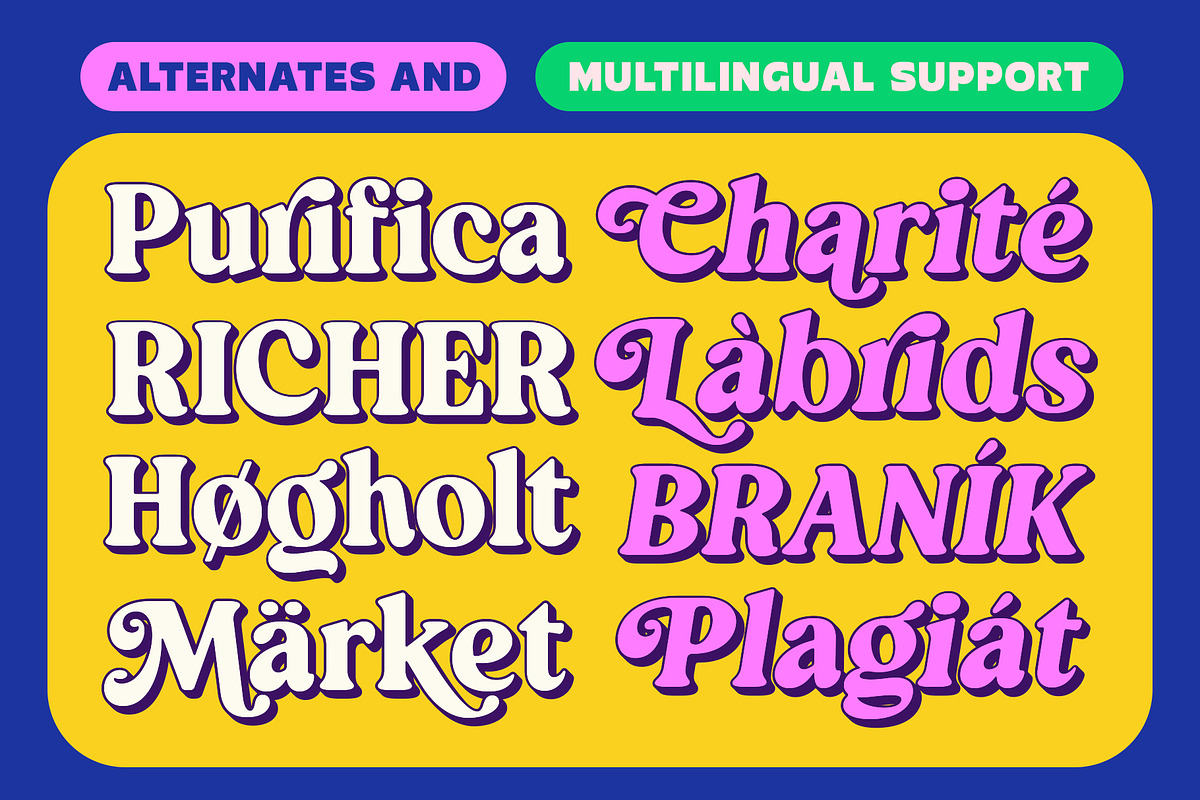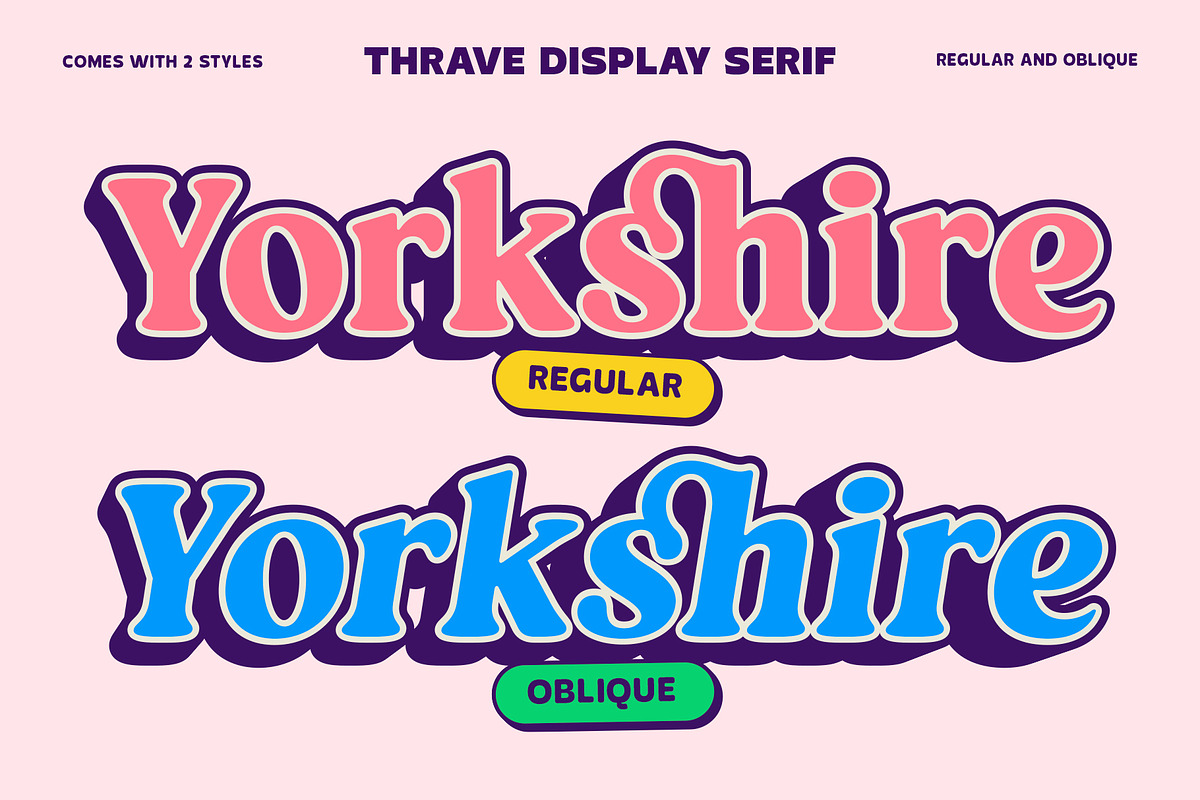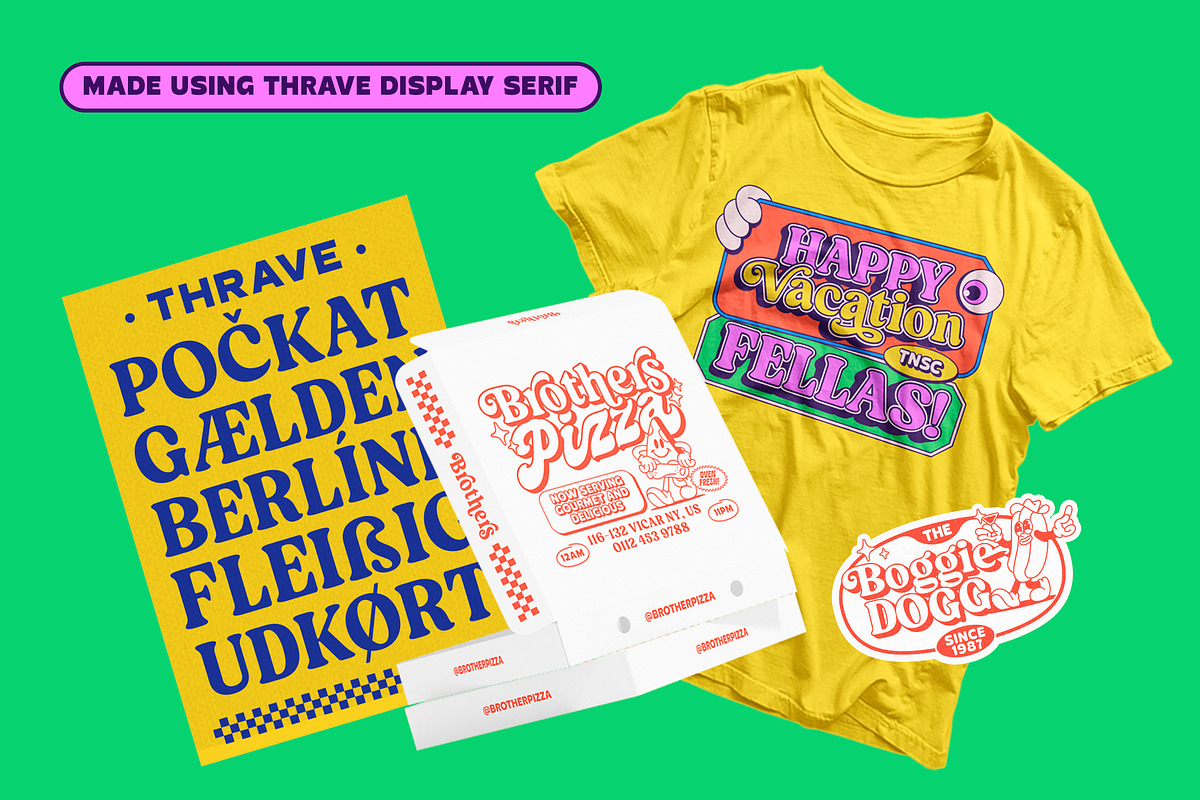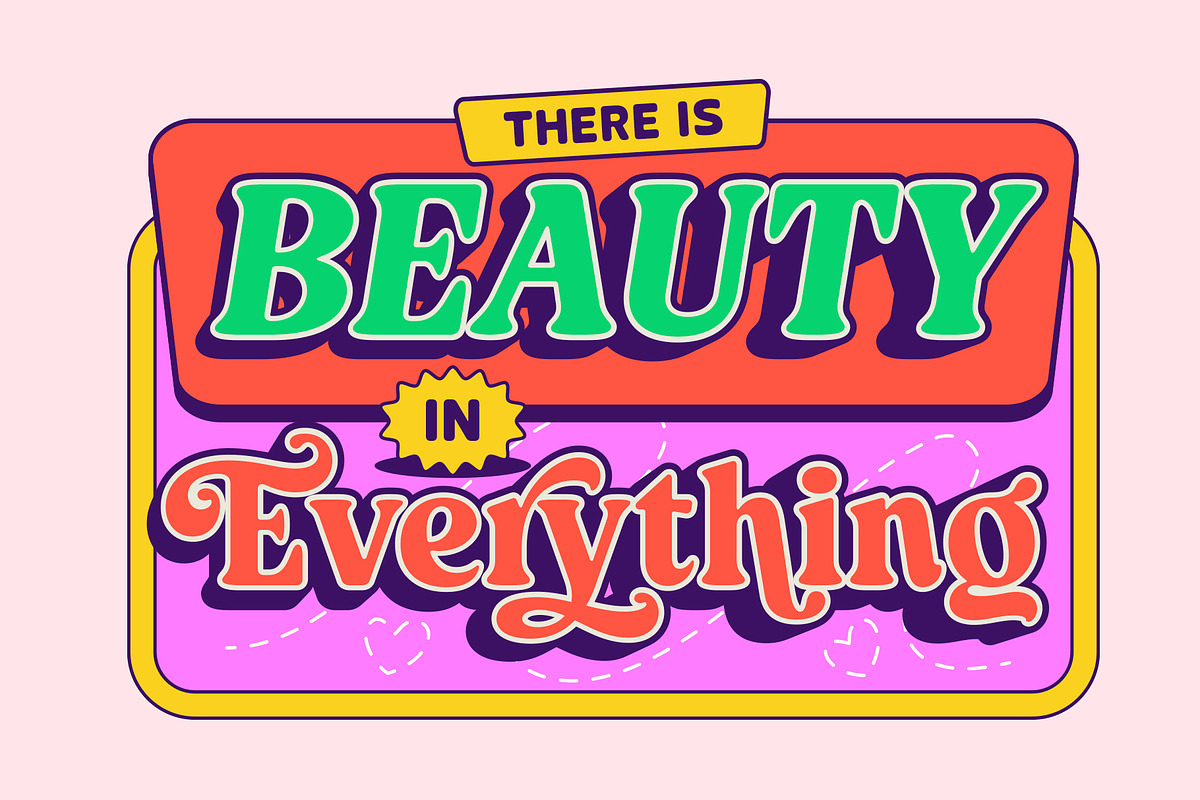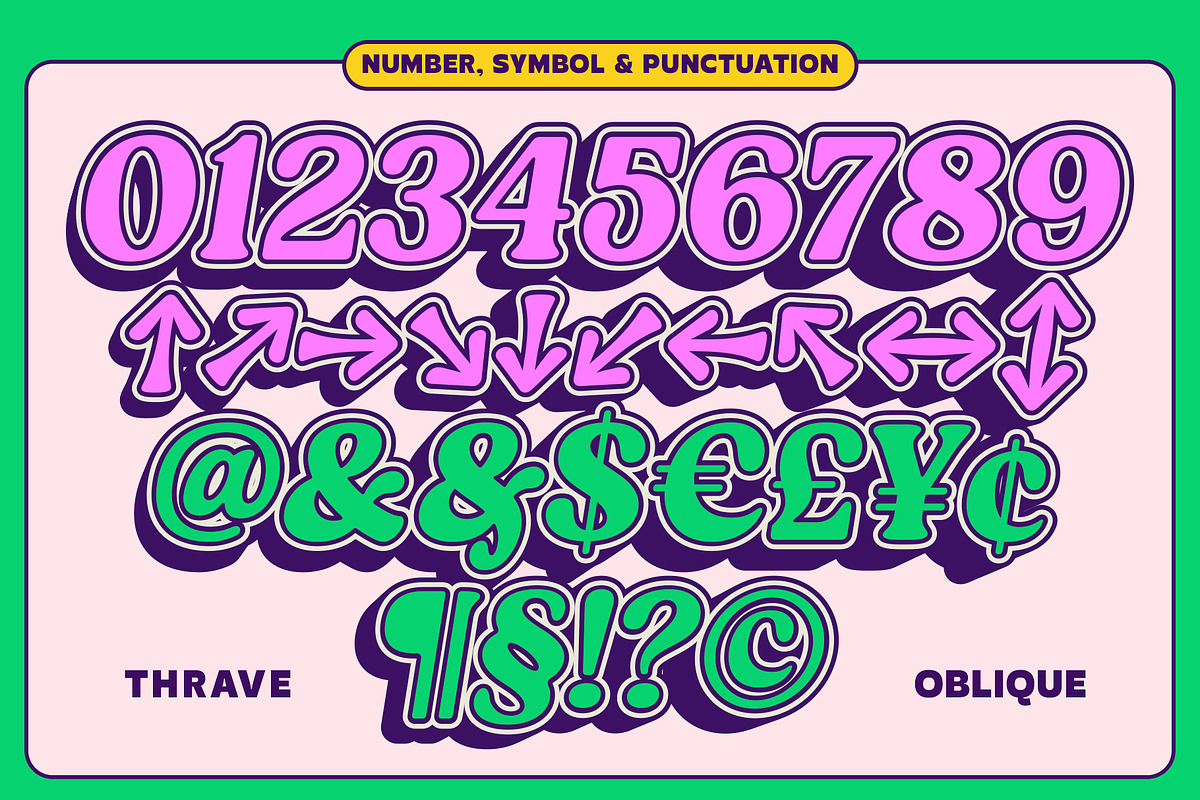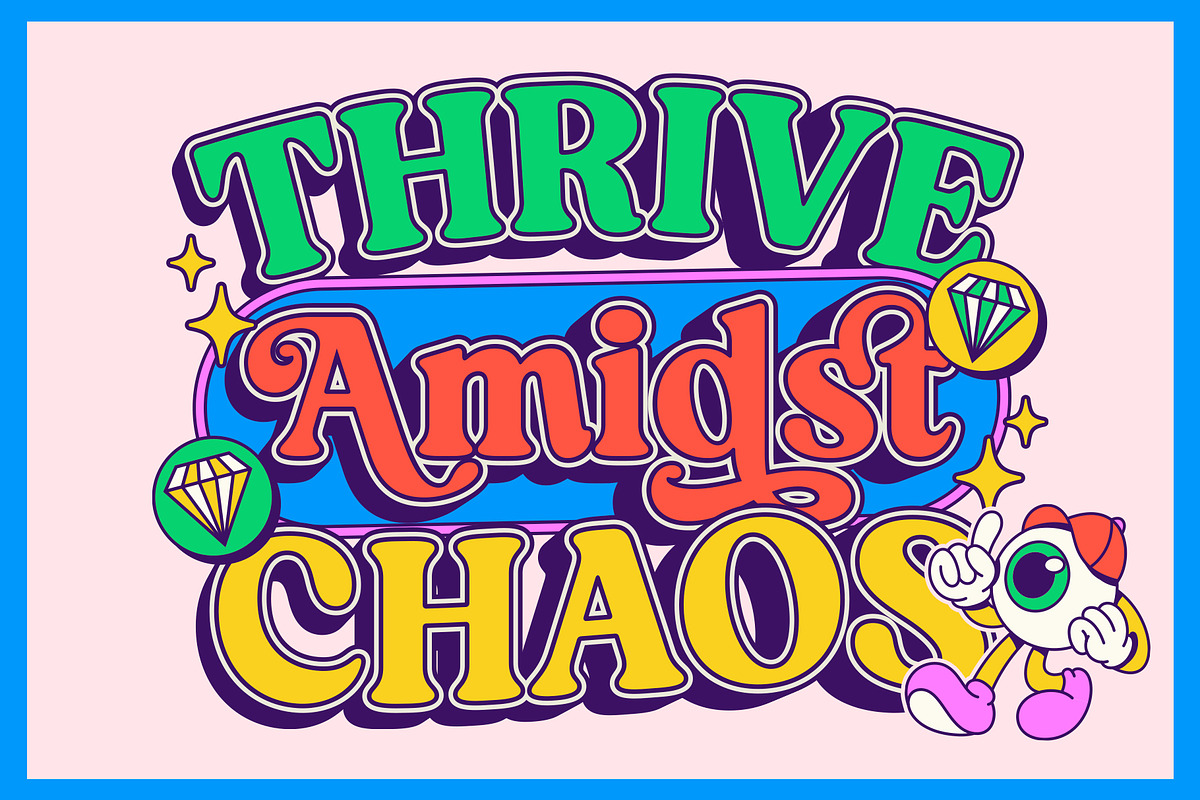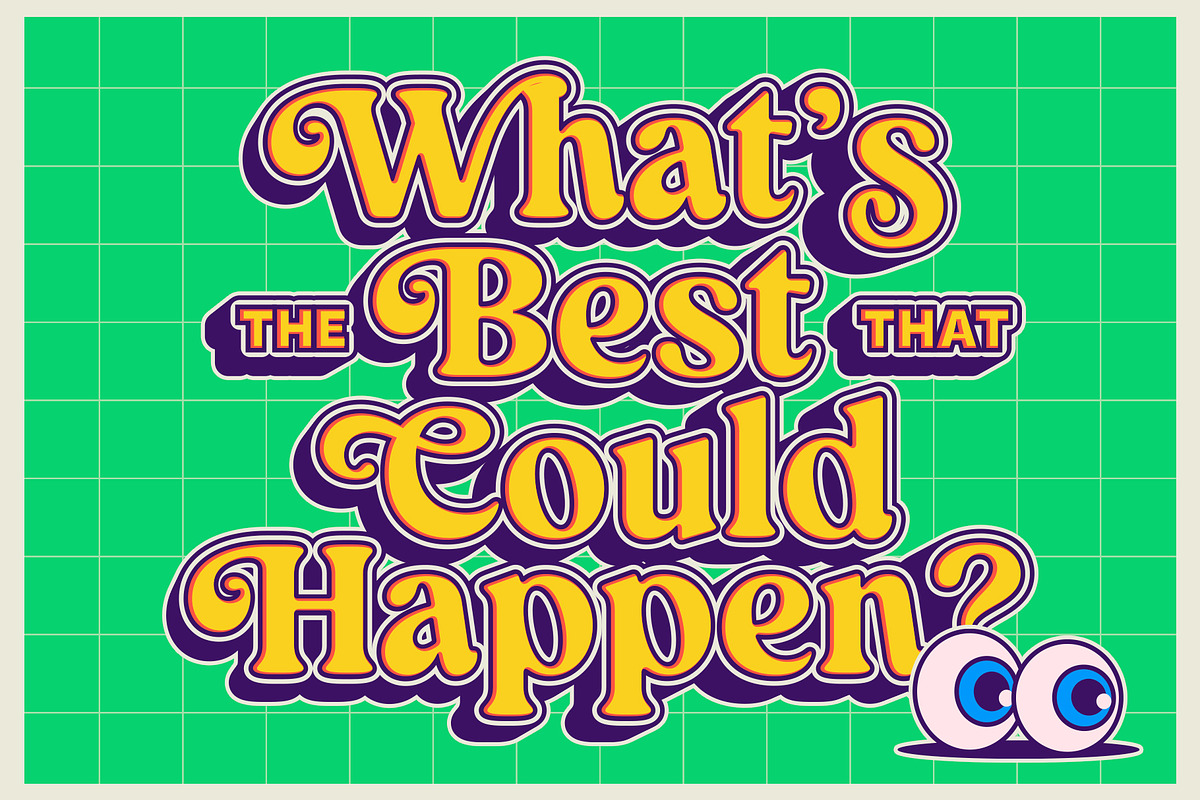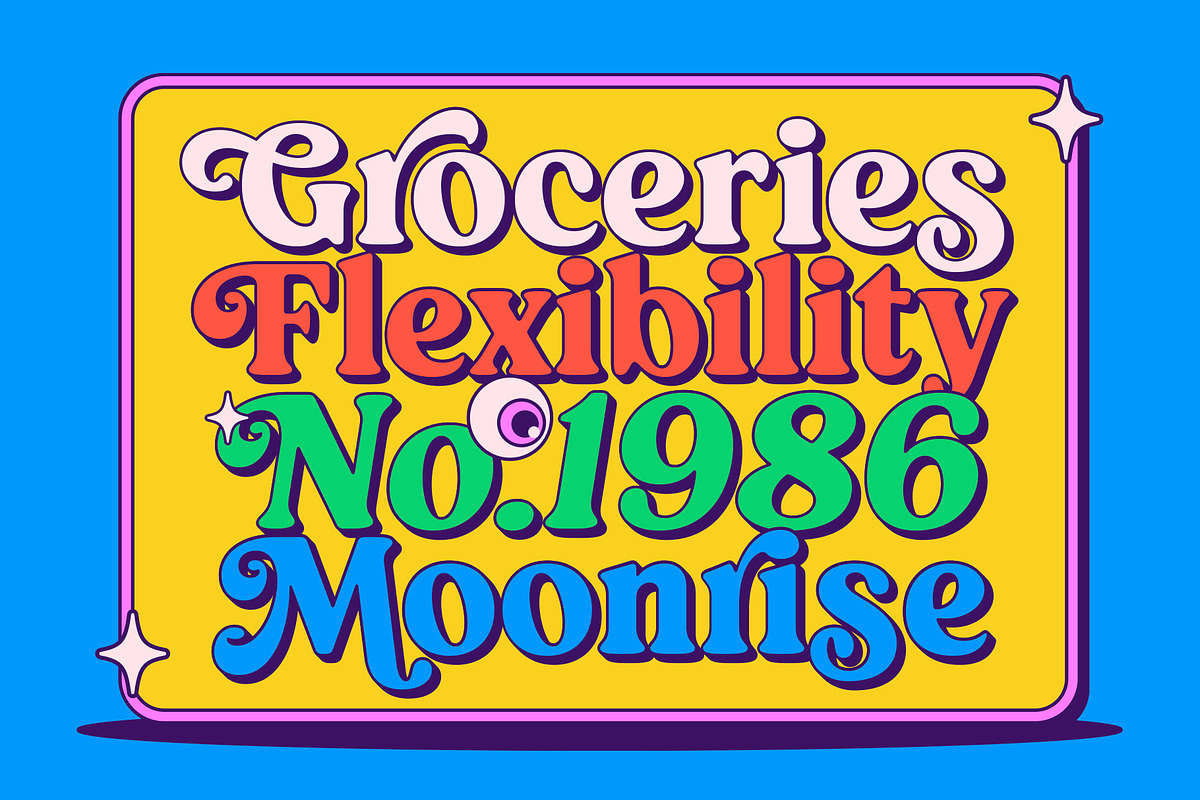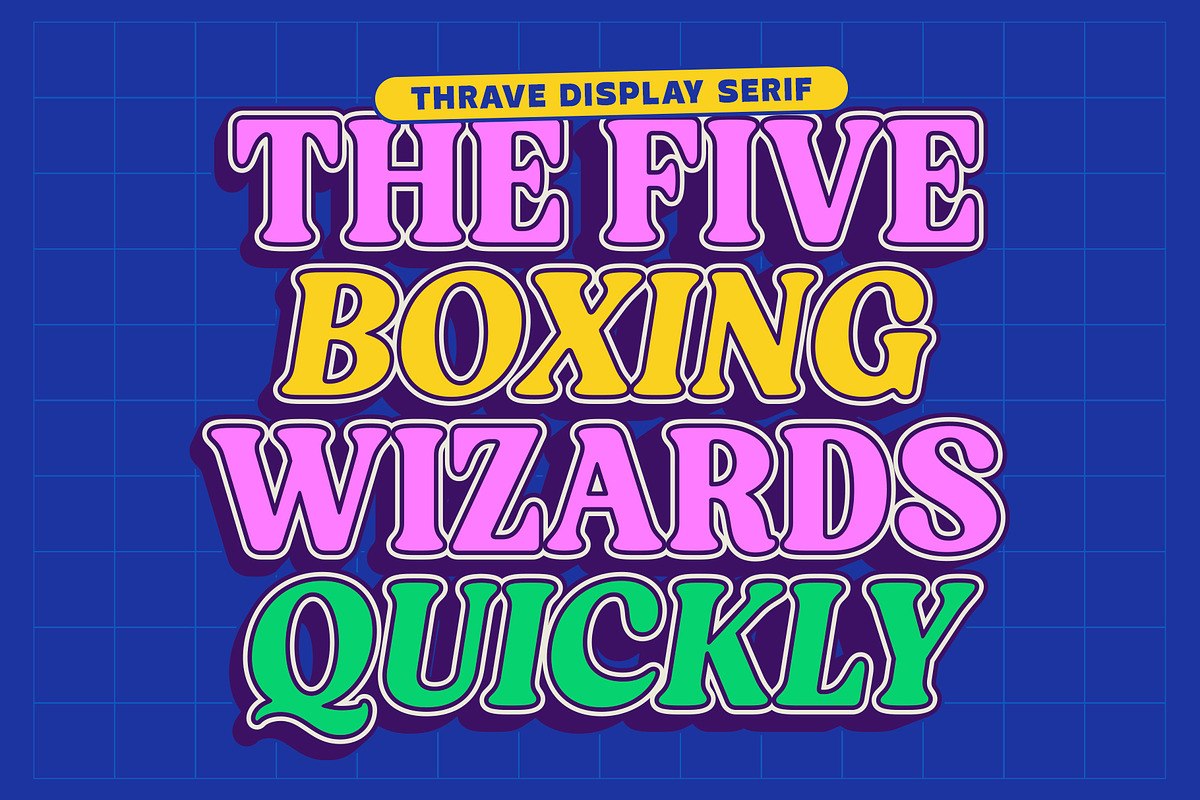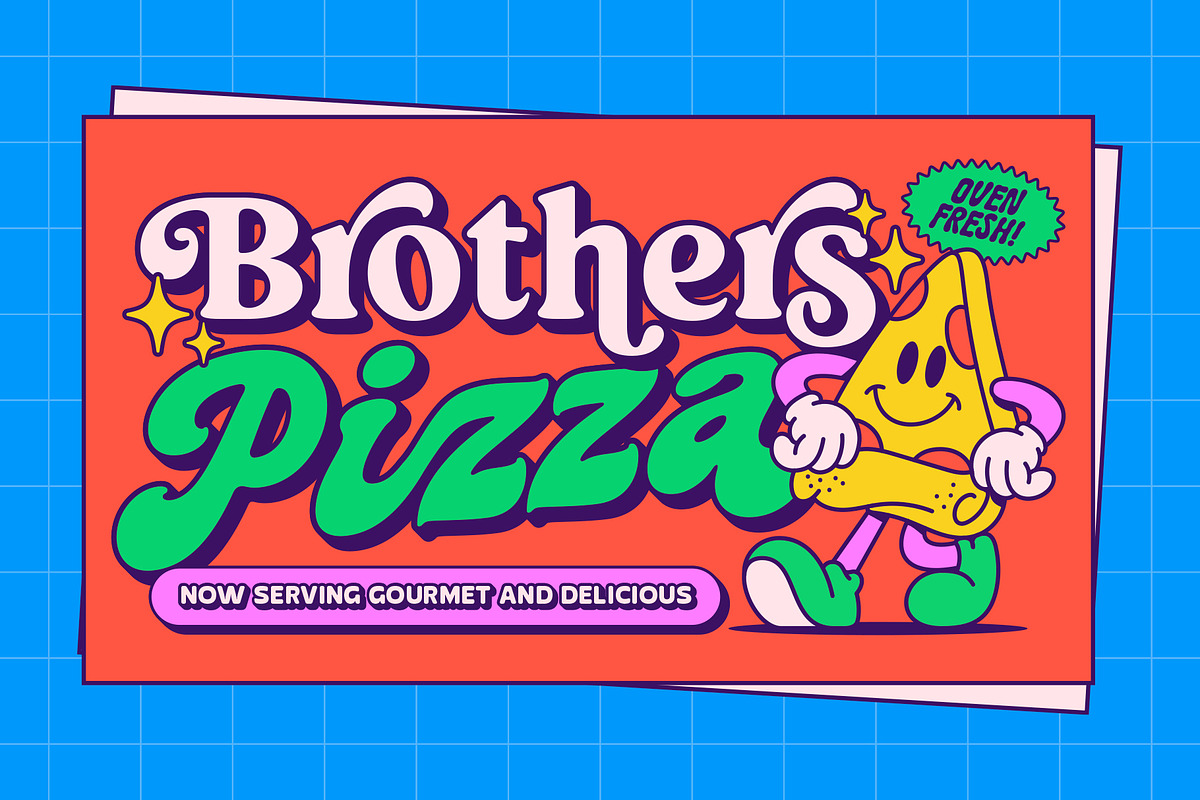
TNSC Thrave - Display Pop Serif
Thrave - Features a serif font in two styles, Regular and Oblique, with alternative glyphs you can explore for your various design projects. This font has a pop, playful, and fun feel. Suitable for any project such as: logos, branding projects, product packaging, quotes, posters and other beautiful projects!